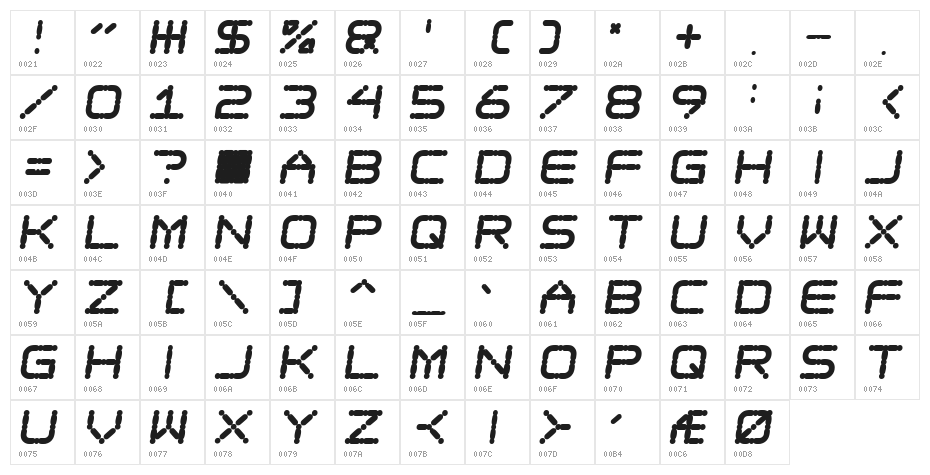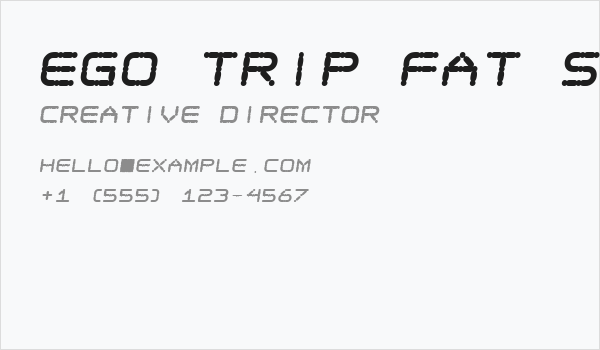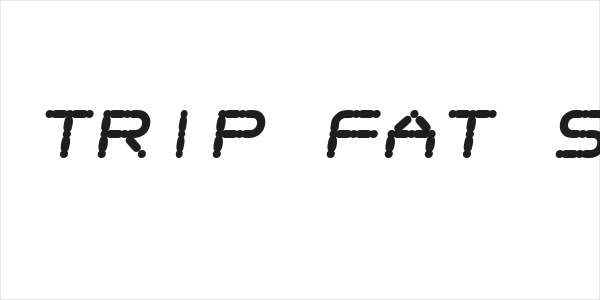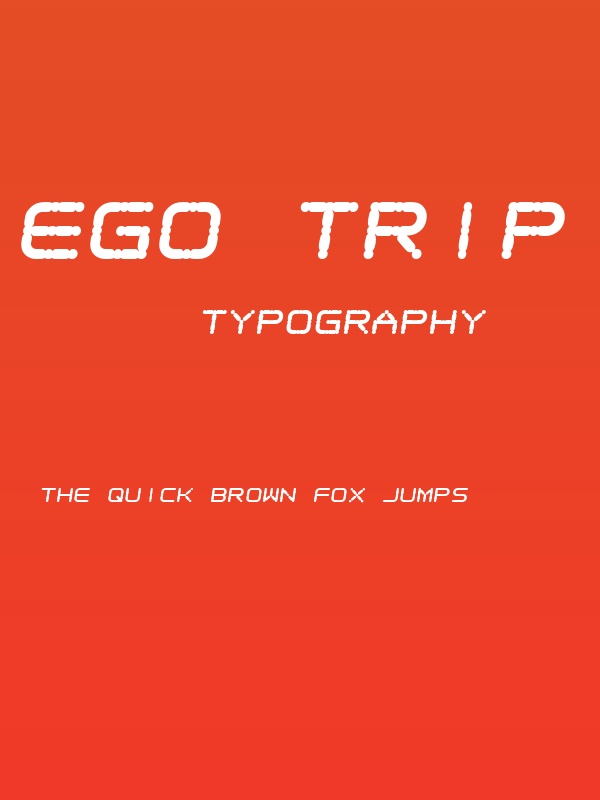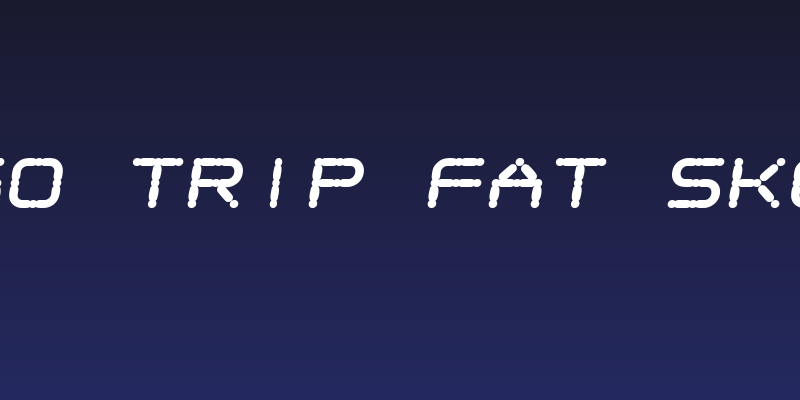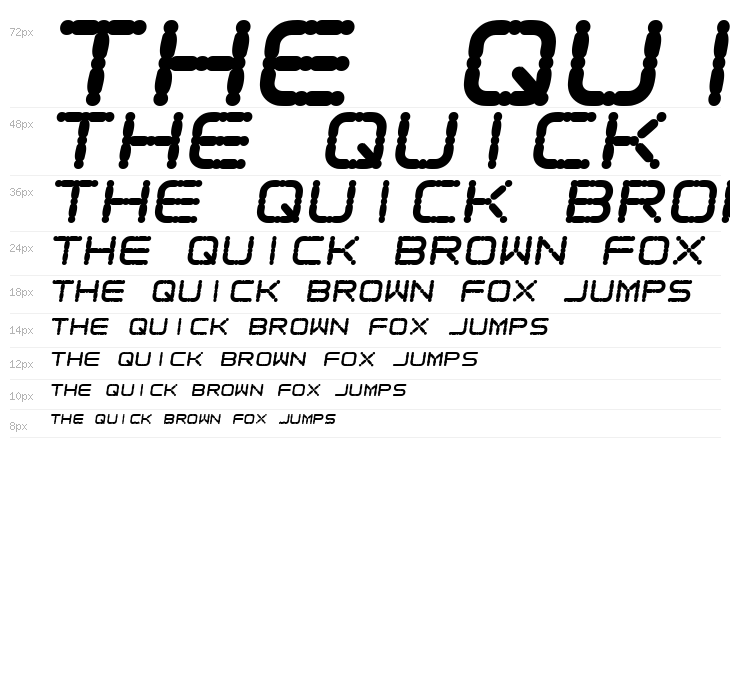
Ego trip Fat Skew Font
Ego trip Fat Skew Description
This font features a unique, futuristic design characterized by its dotted, segmented strokes that create a digital, tech-inspired appearance. The uppercase and lowercase letters maintain a consistent style, with rounded edges and a slightly skewed orientation that adds a dynamic feel. The numerals and special characters follow the same segmented pattern, ensuring uniformity across all glyphs. This font's distinctive style makes it stand out, offering a modern twist on traditional typefaces.
| Proposed Projects | Ideal for technology branding, digital art projects, video game interfaces, and futuristic-themed posters. |